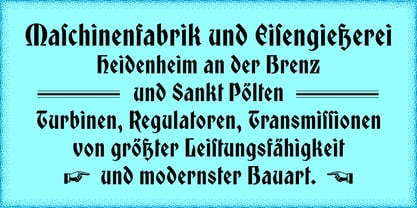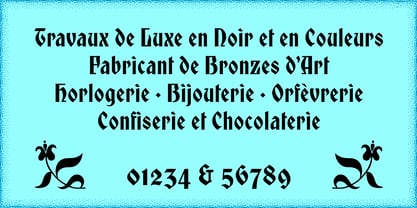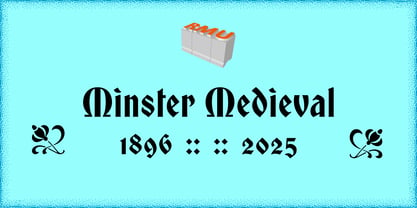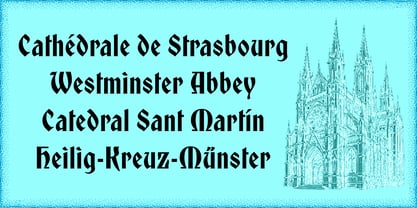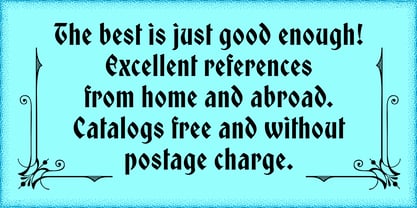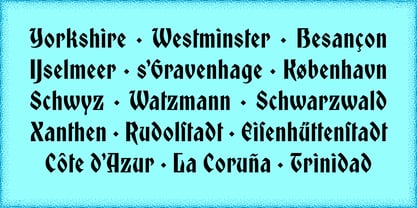
Minster Medieval™
Die Schriftfamilie Minster Medieval wurde von Ralph M. Unger entworfen und von RMU veröffentlicht. Minster Medieval enthält 1 Stile. Mehr über diese Familie
In 1896, Schelter & Giesecke released their in-house design Muenstergotisch, which quickly became one of the most popular fonts at that time. I carefully redraw and redesigned this font for modern use. It contains the long s and the discretionary ligature IJ. The long s can be reached either by typing the integral sign [ ∫ ] or by turning the round s into the long s using the OT-feature historical forms.